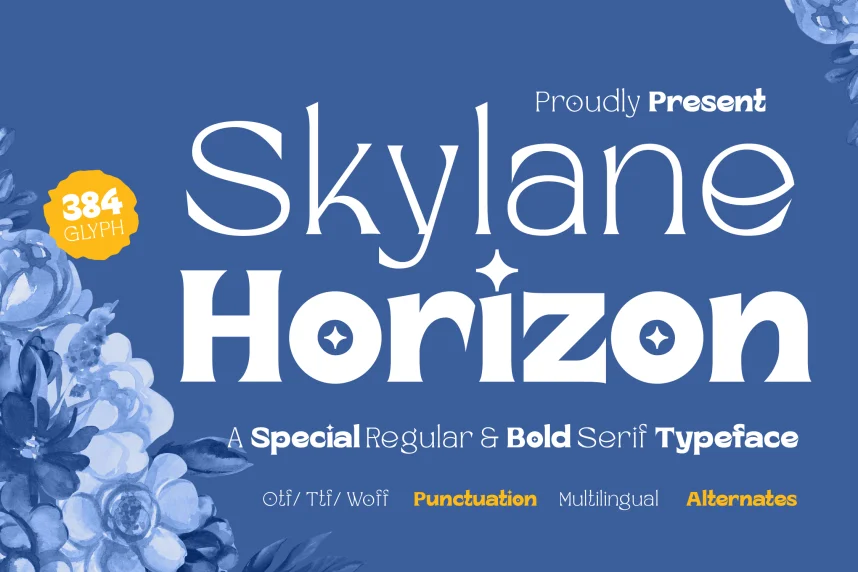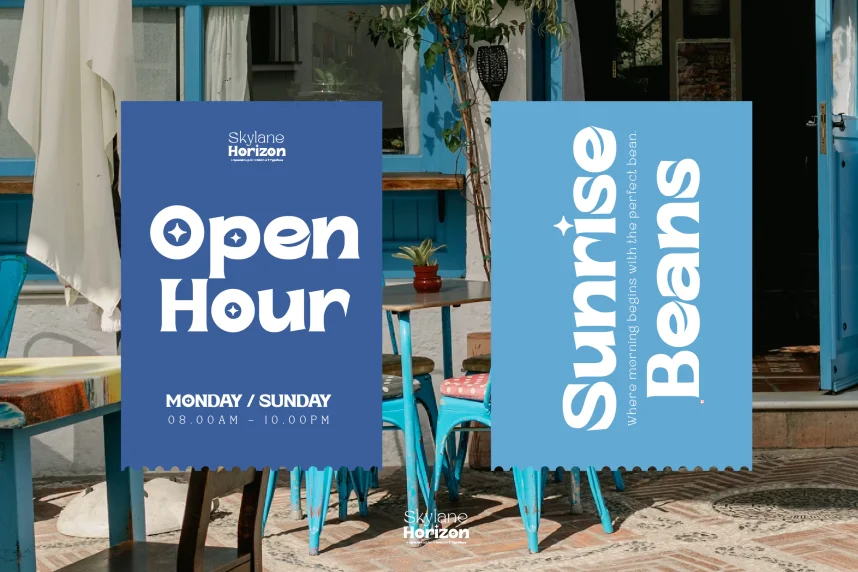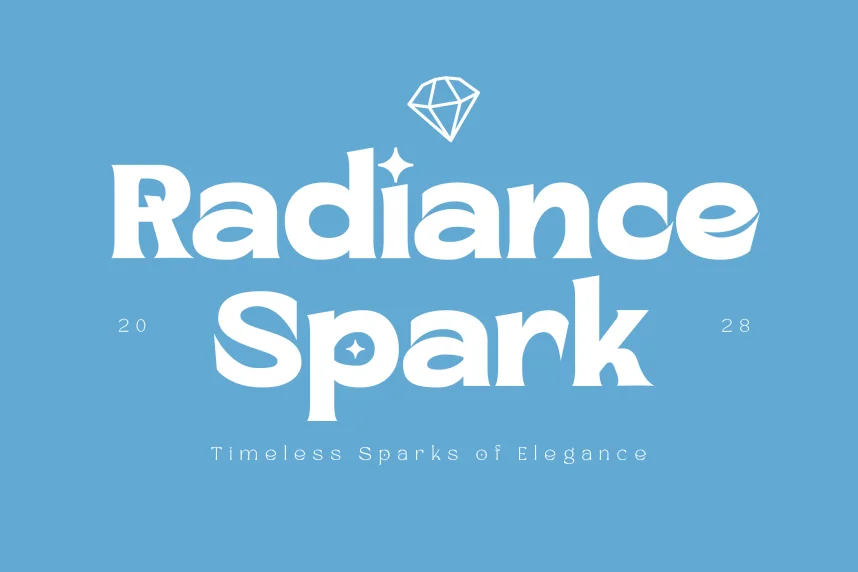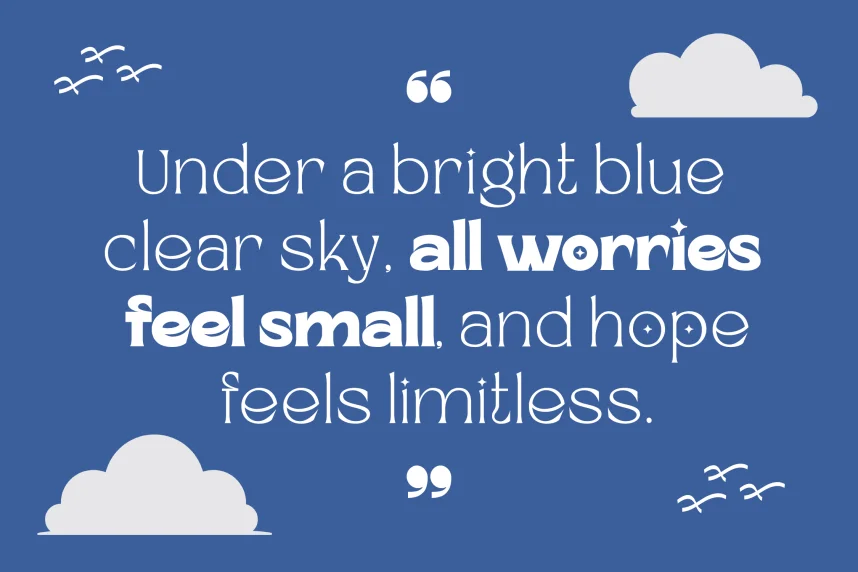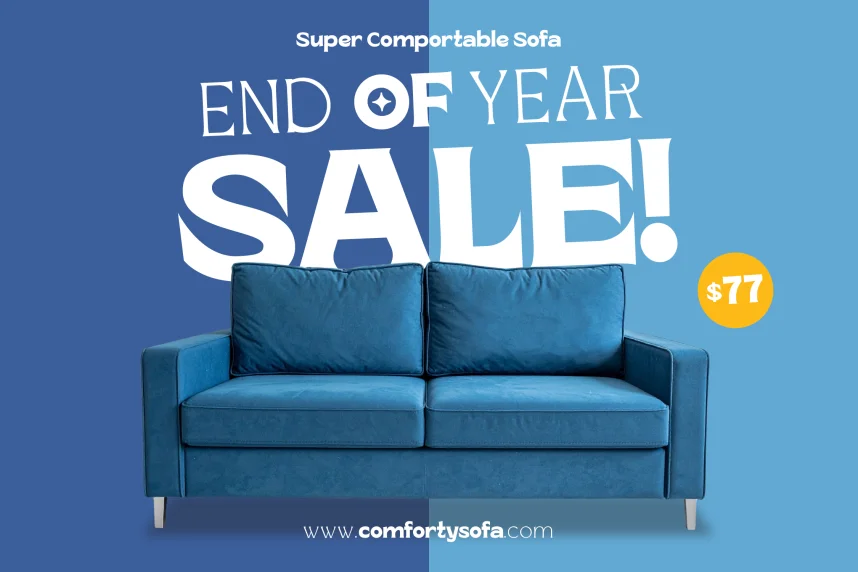
Skylane Horizon Font is a modern display typeface designed for clean layouts where spacing and alignment matter. Designers often face issues with wide display fonts that break layout consistency across web and print. Skylane Horizon addresses this by using controlled proportions and even character width.
This font belongs to the display sans-serif category. Its letterforms feature straight strokes, soft curves, and minimal contrast, which improves clarity at large sizes. The characters sit evenly on the baseline, making the font reliable for headings and visual branding systems. Uppercase letters are structured and readable, while lowercase characters maintain consistency.
Skylane Horizon works well for branding, website headers, landing pages, posters, and corporate presentations. It is also suitable for signage and social media graphics where visual balance is required. Designers often pair it with a neutral sans-serif or light serif for body text to maintain hierarchy.